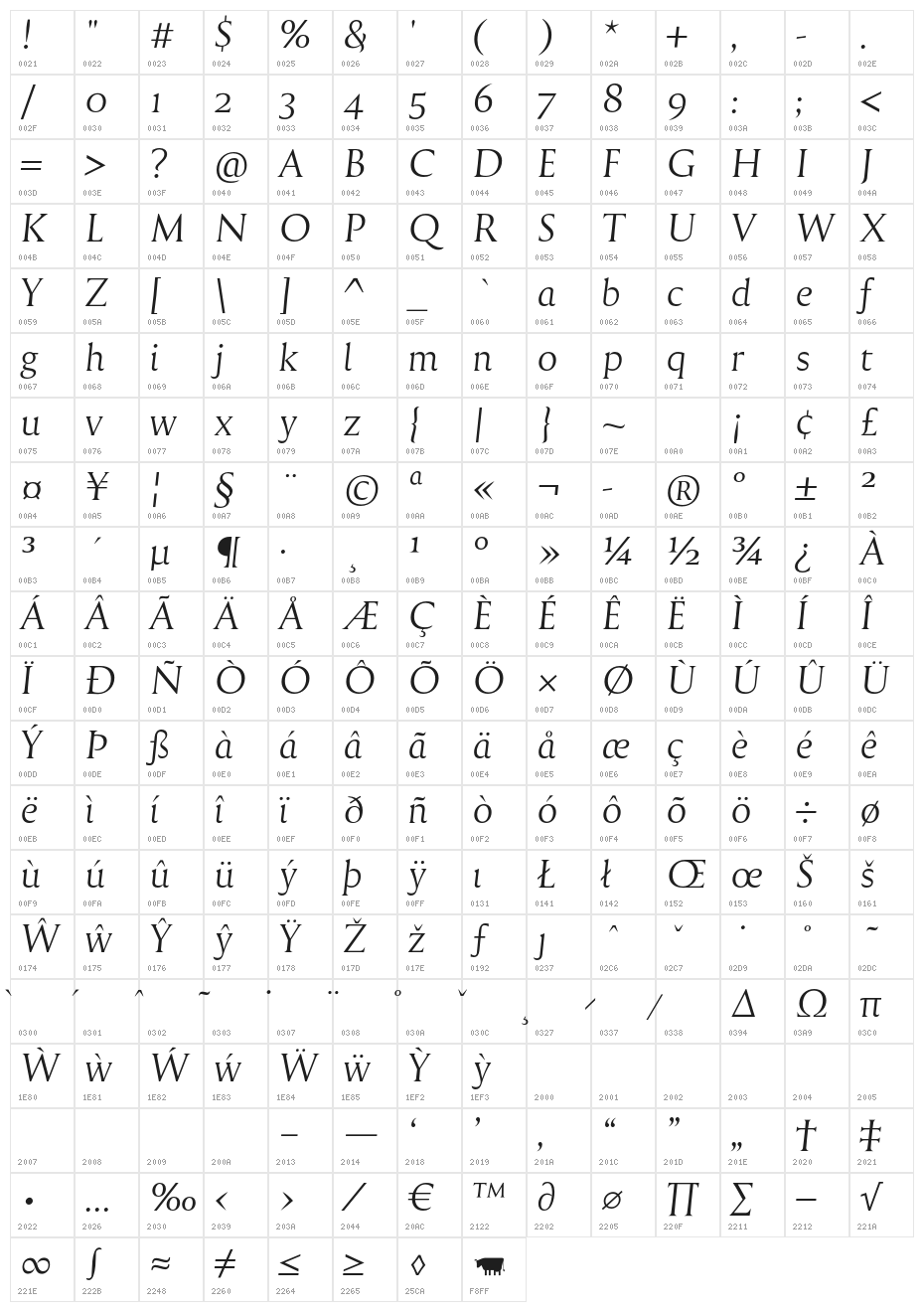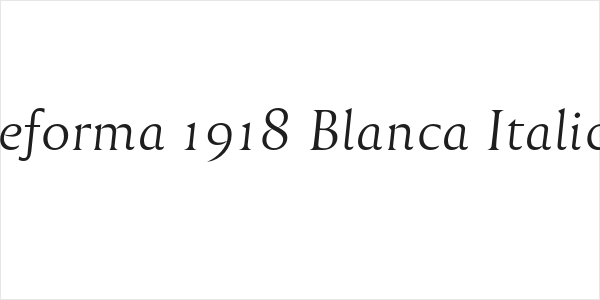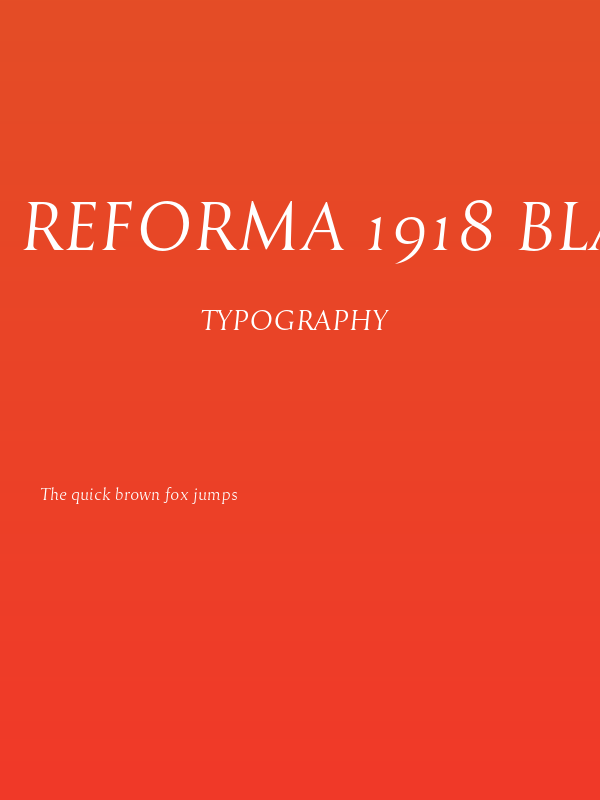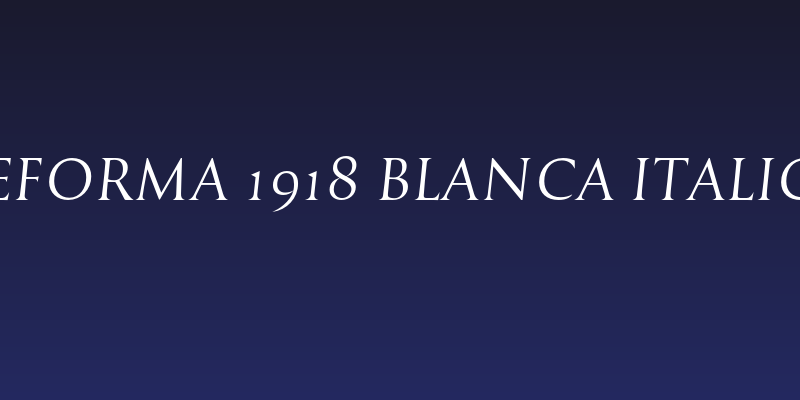
Reforma 1918 Blanca Italica Font
Reforma 1918 Blanca Italica Description
This font features a classic serif style with elegant, flowing lines and a slight italic slant, giving it a sophisticated and timeless appearance. The characters are well-proportioned, with a moderate contrast between thick and thin strokes, enhancing readability while maintaining a refined aesthetic. The uppercase letters are stately and commanding, while the lowercase letters exhibit a graceful curvature. The numerals are clear and distinct, complementing the overall design. Special characters are thoughtfully integrated, maintaining the font's cohesive look. This font is ideal for projects that require a touch of elegance and tradition.
| Use Case | Headlines, Body text |
| Proposed Projects | Ideal for book covers, formal invitations, and editorial design. |